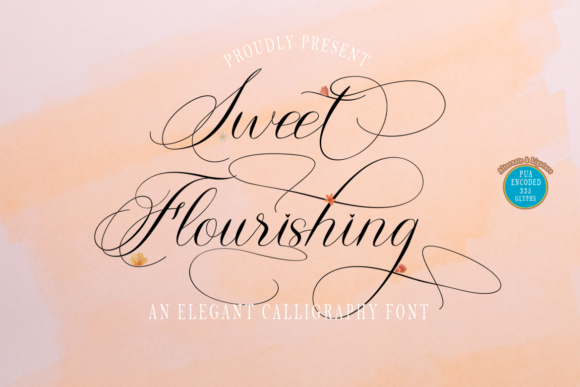
Sweet Flourishing is a thin lettered and graceful script font. Fall for its ravishing style and use it to create gorgeous designs. This font is PUA encoded which means you can access all glyphs and swashes with ease!